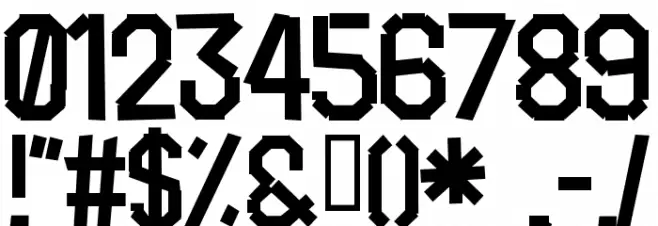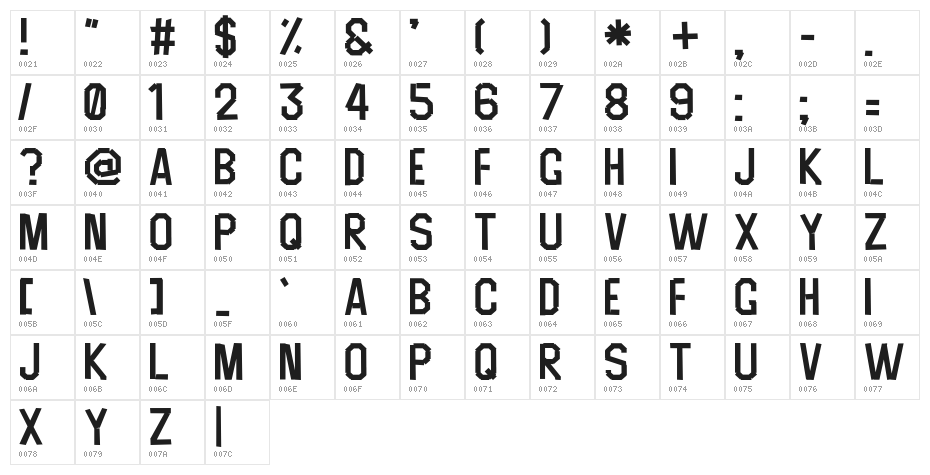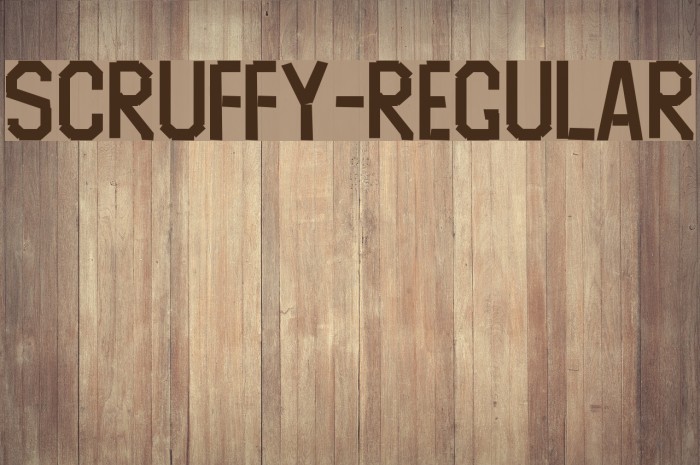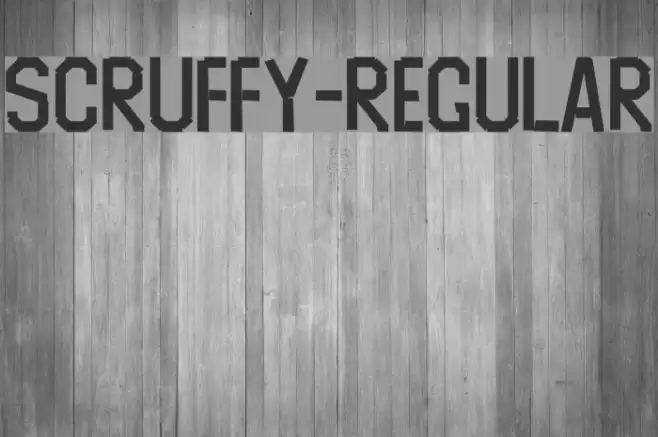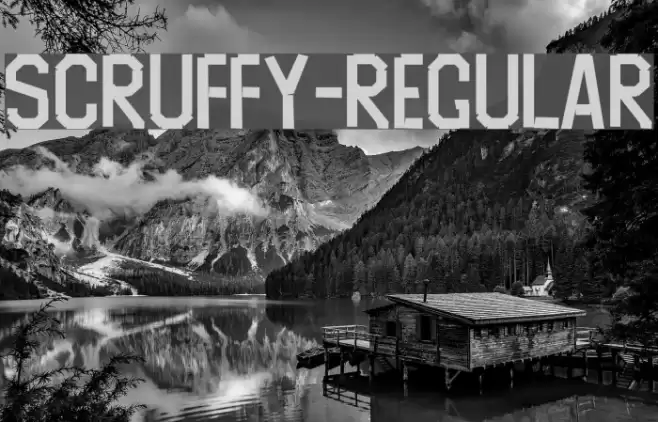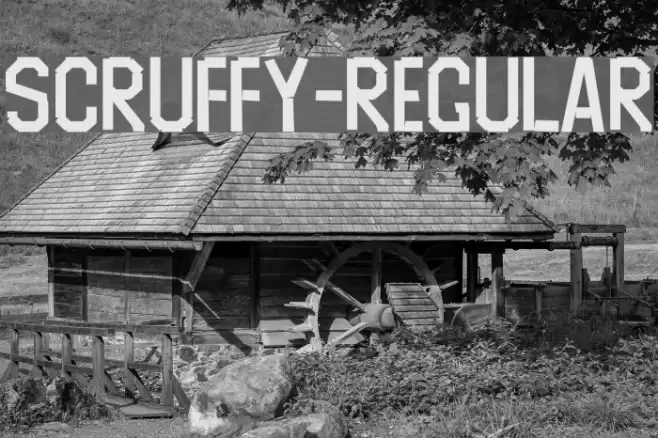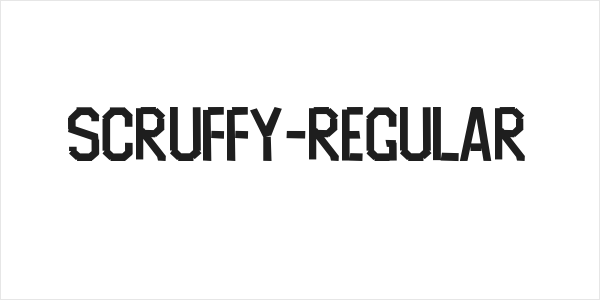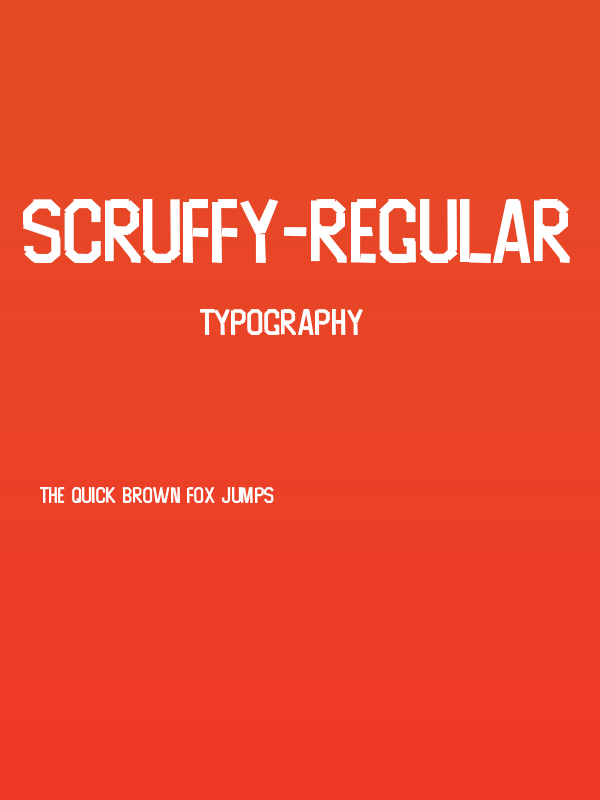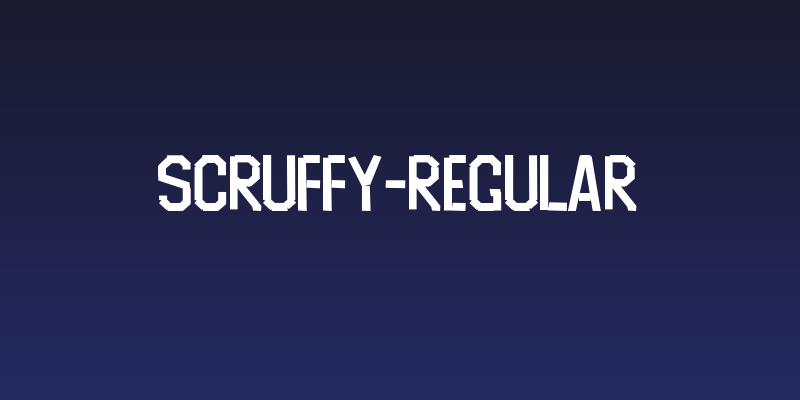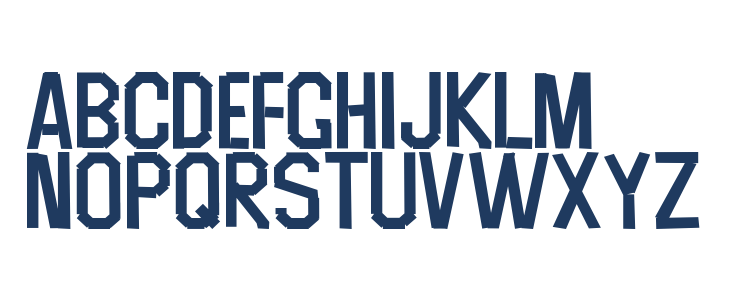
Scruffy-Regular Font
Scruffy-Regular Description
This font features a bold, angular design with a distinctly rugged and edgy appearance. The characters are constructed with sharp, geometric shapes that give it a unique, hand-crafted feel. The uppercase letters are particularly striking, with a blocky, almost stencil-like quality. The numbers and special characters maintain this bold, angular style, ensuring consistency across all glyphs. This font's design suggests a sense of strength and individuality, making it stand out in any context.
| Proposed Projects | Ideal for projects that require a strong, distinctive look, such as branding for outdoor gear, event posters, or video game titles. |